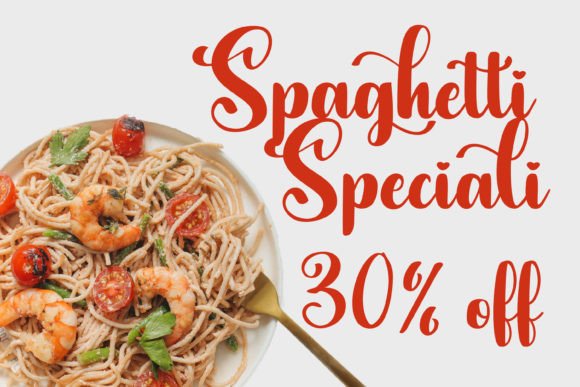
Calligraphy Font
Calligraphy is a modern fancy script font. It is perfect for brands, logos, flyers, wedding invitations, and its beautiful curves will make your projects look authentic and gorgeous.